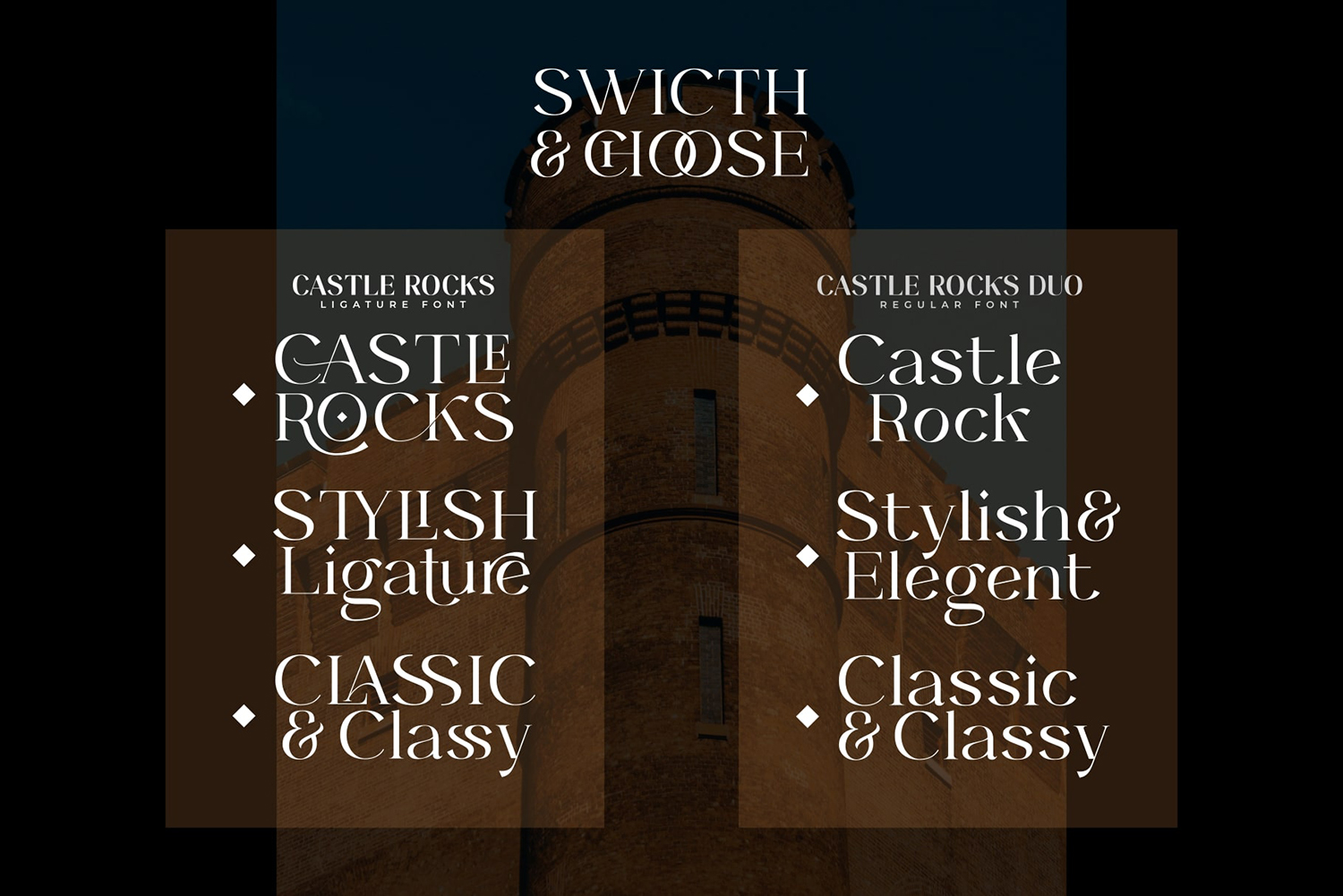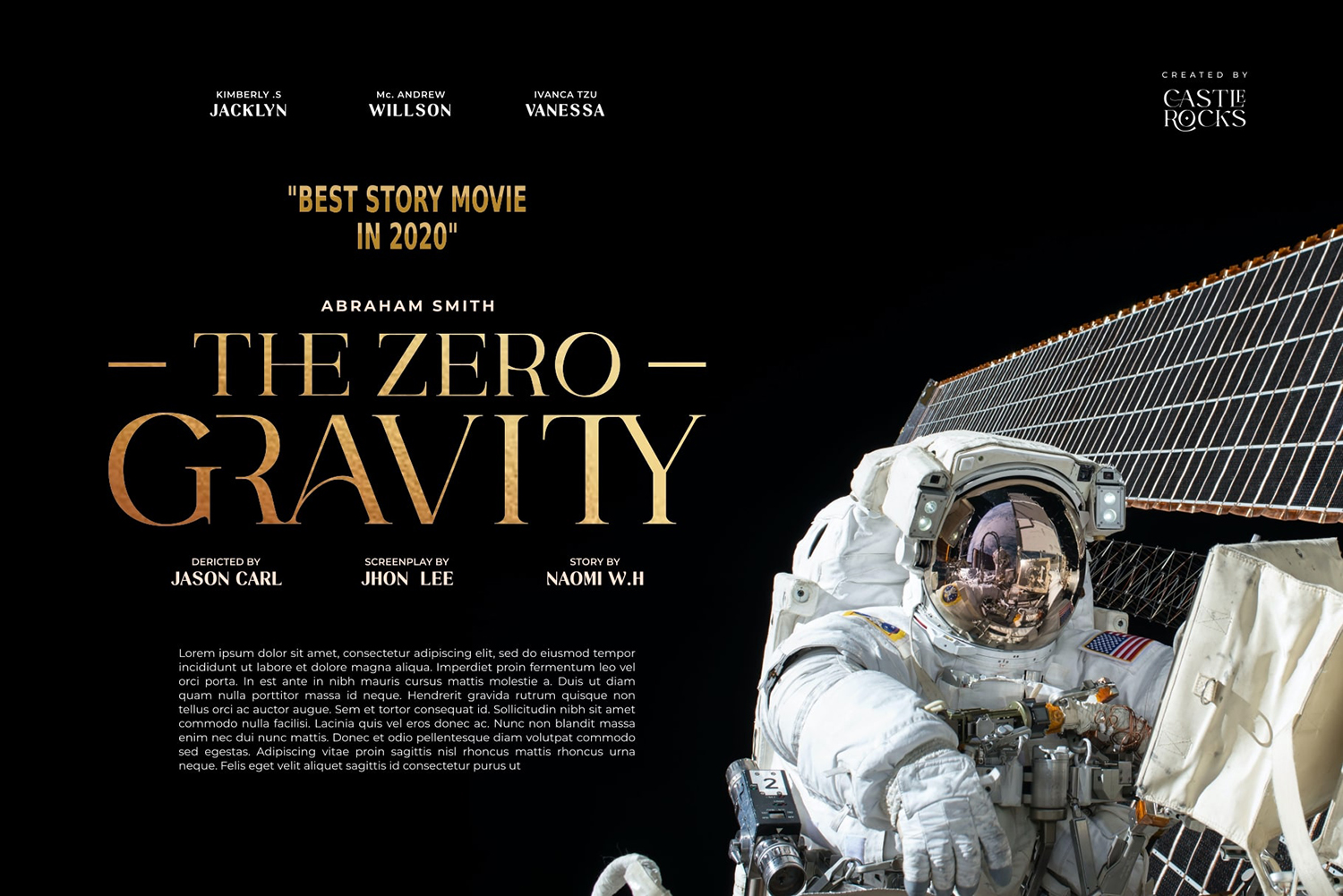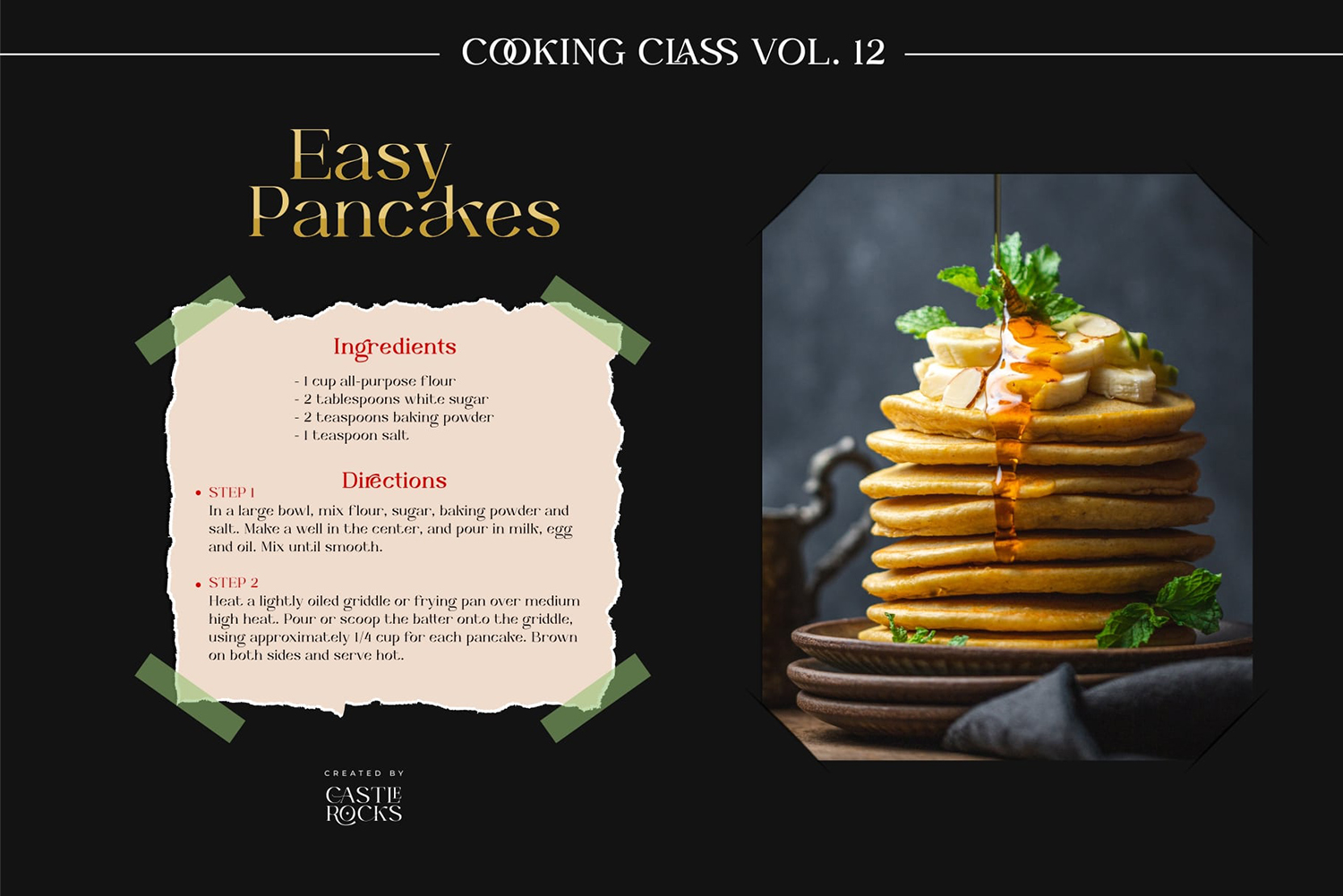
Castle Rocks Free Font
Castle Rocks Free Font is a simple, elegant and thin lettered serif font. It can be used for various purposes such as logos, wedding invitations, headings, t-shirts, letterhead, signage, labels, news, posters, badges and so much more.